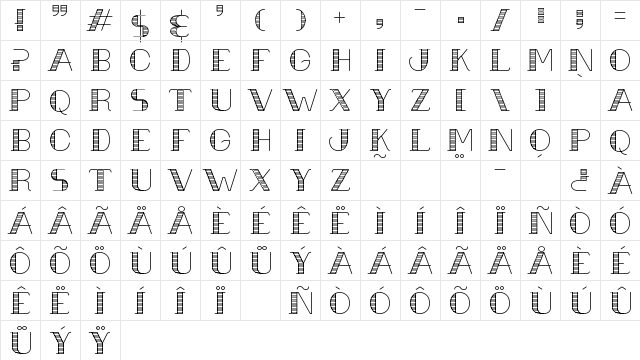
Urbane Cuisine Regular
| Foundry | Font Monger |
| Designer | Chris Vile |
Design Context for Urbane Cuisine Typeface
Urbane Cuisine is a composed and adaptable typeface that performs quietly and consistently across a wide range of design contexts.